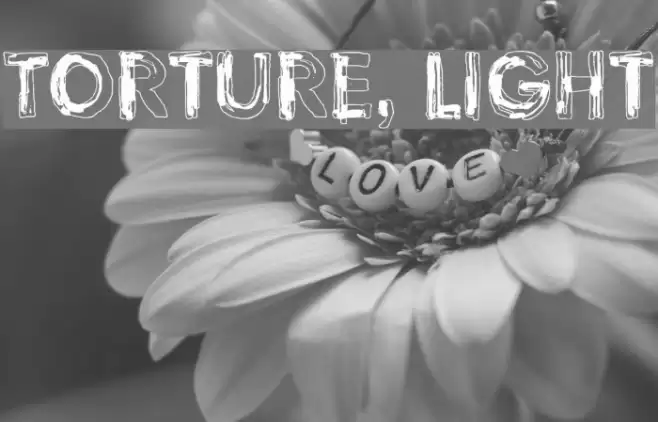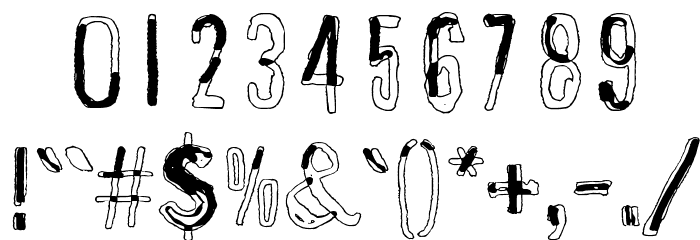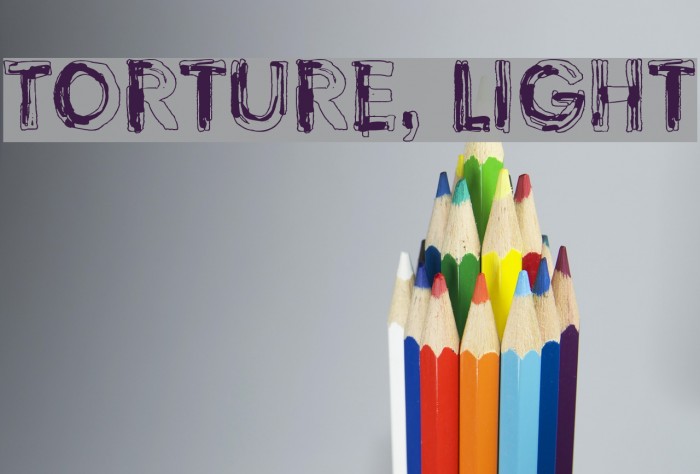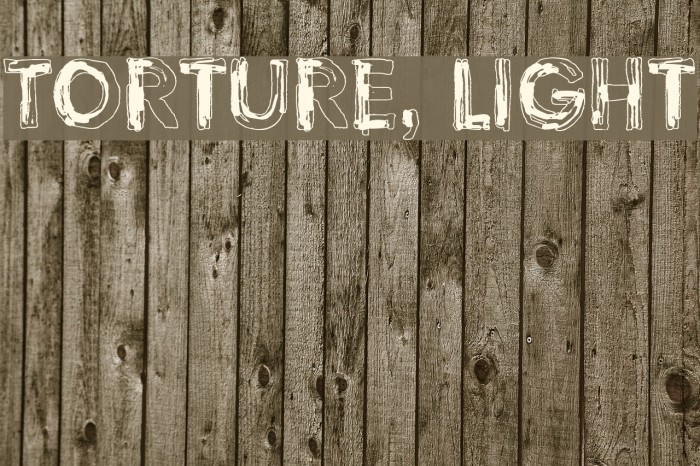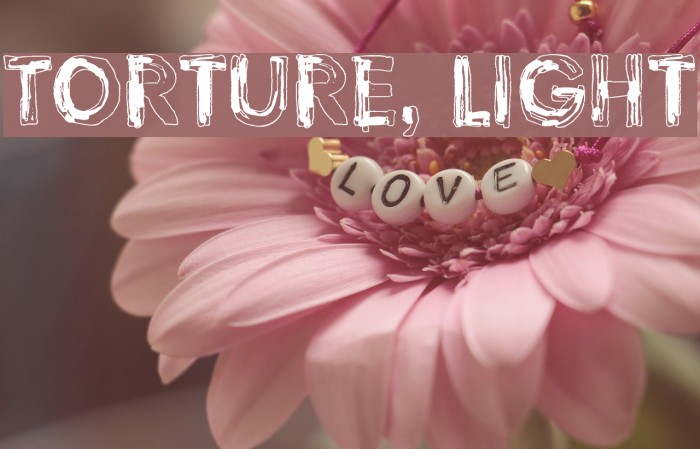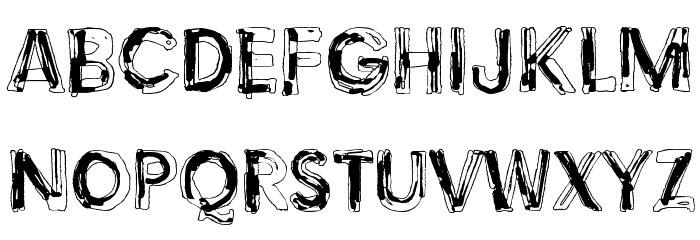
Torture, Light Font
Torture, Light Description
This font features a highly decorative and distressed style, characterized by its rough, hand-drawn appearance. Each letter is uniquely crafted with uneven strokes and irregular edges, giving it a raw and artistic feel. The uppercase and lowercase letters maintain a consistent design, with a playful yet chaotic aesthetic. The numbers and special characters follow the same theme, adding to the font's overall cohesive look. This font's distinctive style makes it stand out, ideal for projects that require a bold and unconventional typeface.
A decorative, distressed font with a hand-drawn, chaotic style from Distorted Eroded fonts.
- Proposed Projects: Ideal for artistic projects, album covers, posters, and any design requiring a bold, unconventional typeface.